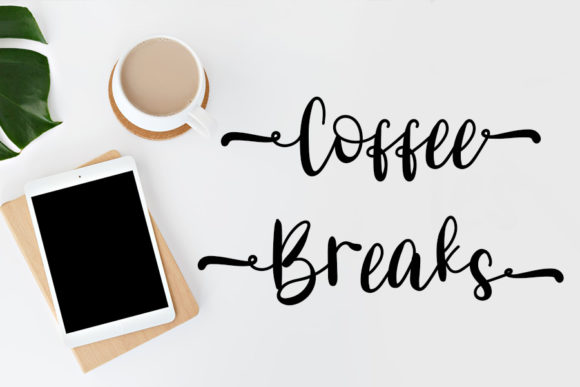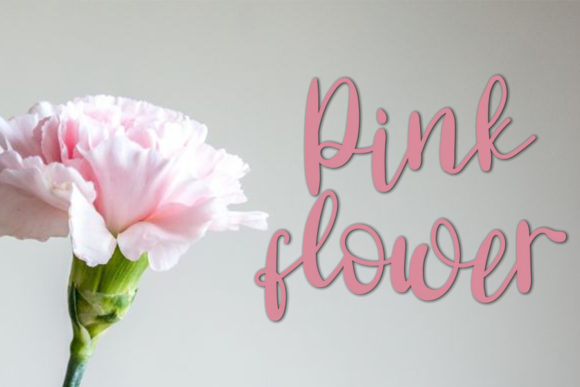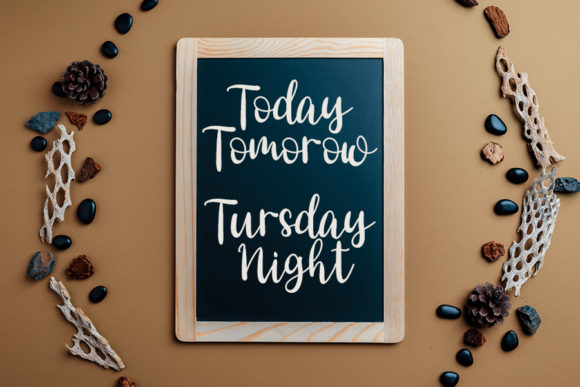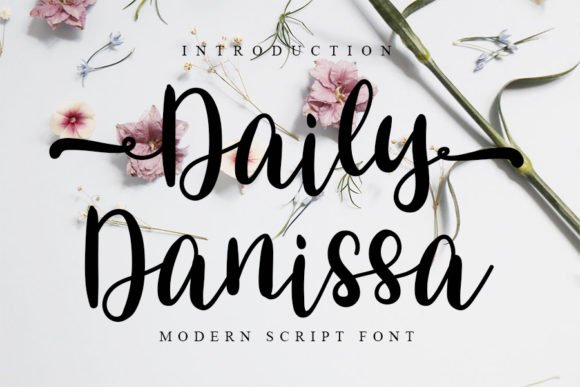
Introduction to Daily Danissa Font
Daily Danissa is a bold and elegant script font.
Daily Danissa is the perfect font for making beautiful and great designs This font is PUA encoded which means you can access all of the glyphs and swashes with ease.
Key Features of Daily Danissa Font
Why Choose Daily Danissa Font?